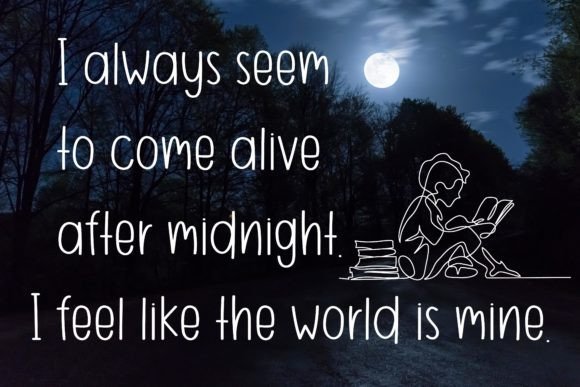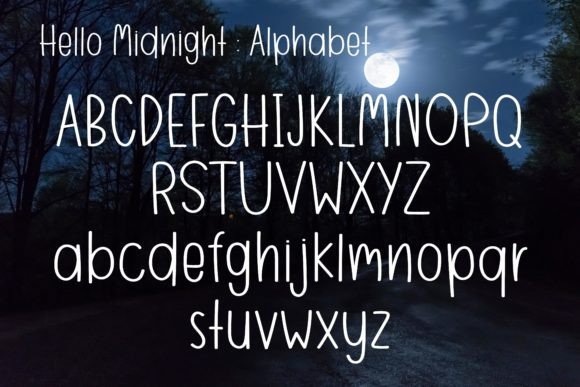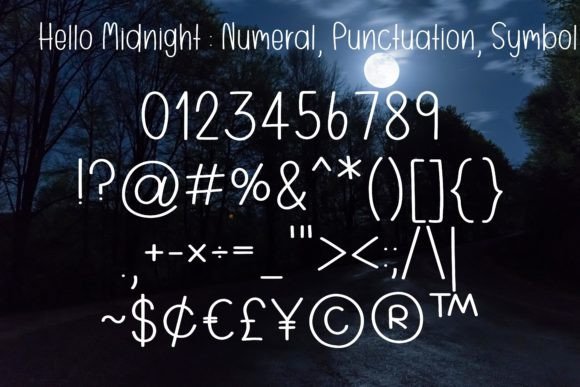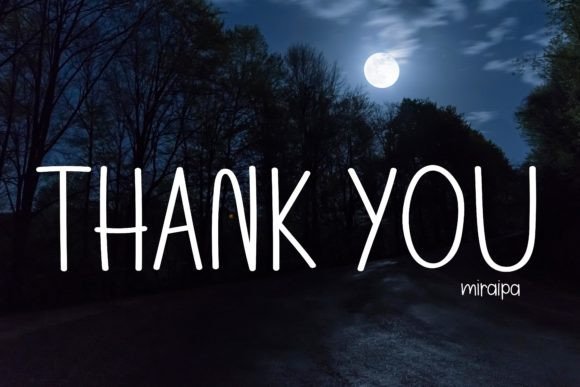
About Hello Midnight Font
“Hello Midnight” is a lovely and cute handwritten font that brings a friendly and joyful touch to your projects. This versatile script font is designed to be adaptable, making it suitable for various applications, from greeting cards to headlines and beyond.
The hand-written style of “Hello Midnight” adds a personal and warm feel to the text, making it inviting and charming. Whether you’re working on designing greeting cards, creating headlines, or any other project that requires a touch of cuteness, this font is crafted to fulfill those needs.
The versatility of this font allows it to seamlessly fit into different design contexts, making it a valuable asset in your font library. Its playful and charming demeanor makes it a great choice for adding character and uniqueness to your creative endeavors.
Incorporate “Hello Midnight” into your next project to infuse a dose of loveliness and cuteness. This font is created to bring a friendly and joyful atmosphere to your designs, making them stand out with a touch of warmth and charm.
In summary, “Hello Midnight” is a lovely and cute handwritten font that suits a variety of applications, from greeting cards to headlines. Its friendly and joyful qualities make it a versatile and charming addition to your creative toolkit.